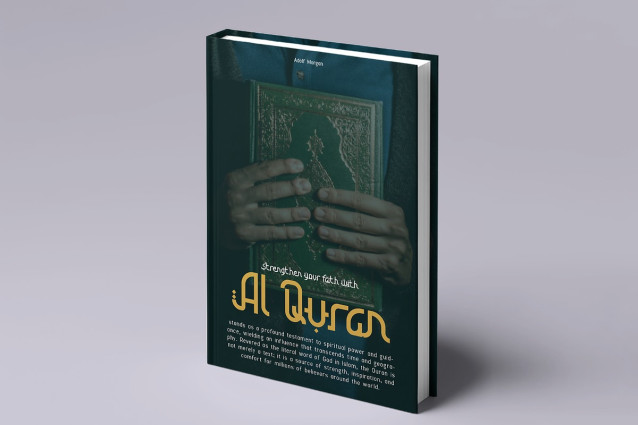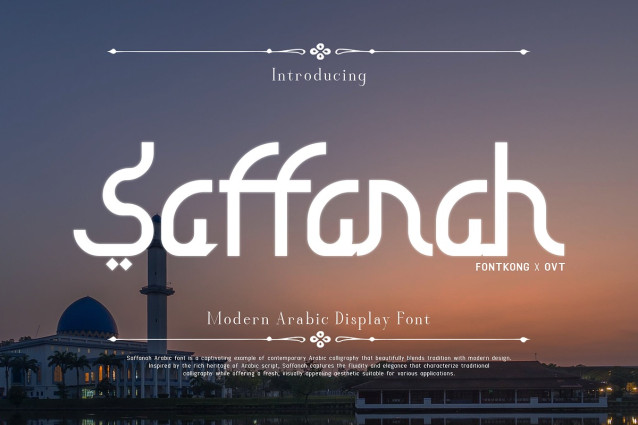
Saffanah Font
Saffanah Font is a striking modern Arabic display font designed to captivate attention with its bold and stylish letterforms. Perfect for headlines, posters, logos, advertisements, and social media graphics, this typeface delivers an impactful visual presence. The unique structure of Saffanah blends contemporary design with subtle traditional elements, making it ideal for projects that require both artistic flair and readability.
Designed to stand out in digital and print media, Saffanah adds character to any creative project. Its balanced curves and sharp edges make it suitable for branding campaigns, event promotions, and product packaging, ensuring your message leaves a lasting impression. Whether you’re creating bilingual content or purely Arabic designs, this font will provide an energetic and modern look.
Infuse your designs with bold elegance using Saffanah a typeface that turns any display into a visual masterpiece.